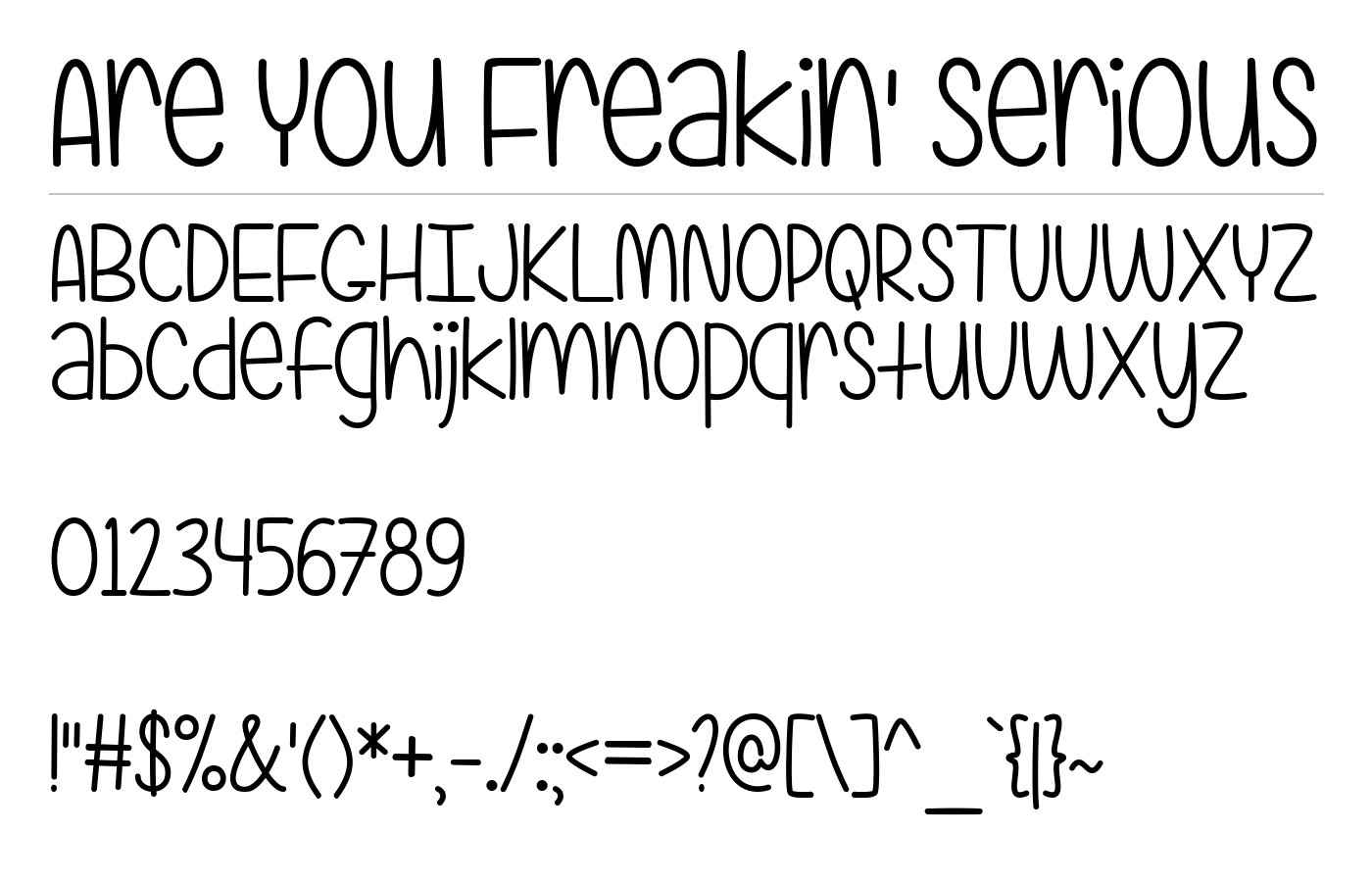
Are You Freakin' Serious is a playful, hand-drawn sans serif font with a tall, narrow structure and casual, organic strokes that give it a light and airy feel. Its quirky letterforms and uneven lines create an informal, friendly vibe perfect for designs that want to feel approachable and fun. This font works best for children’s projects, casual branding, posters, and any context that benefits from a lively and whimsical touch.
Are You Freakin' Serious Font
About Are You Freakin' Serious Font
| Font family | Are You Freakin' Serious Font |
| Designer | Misti's Fonts (Misti Hammers) |